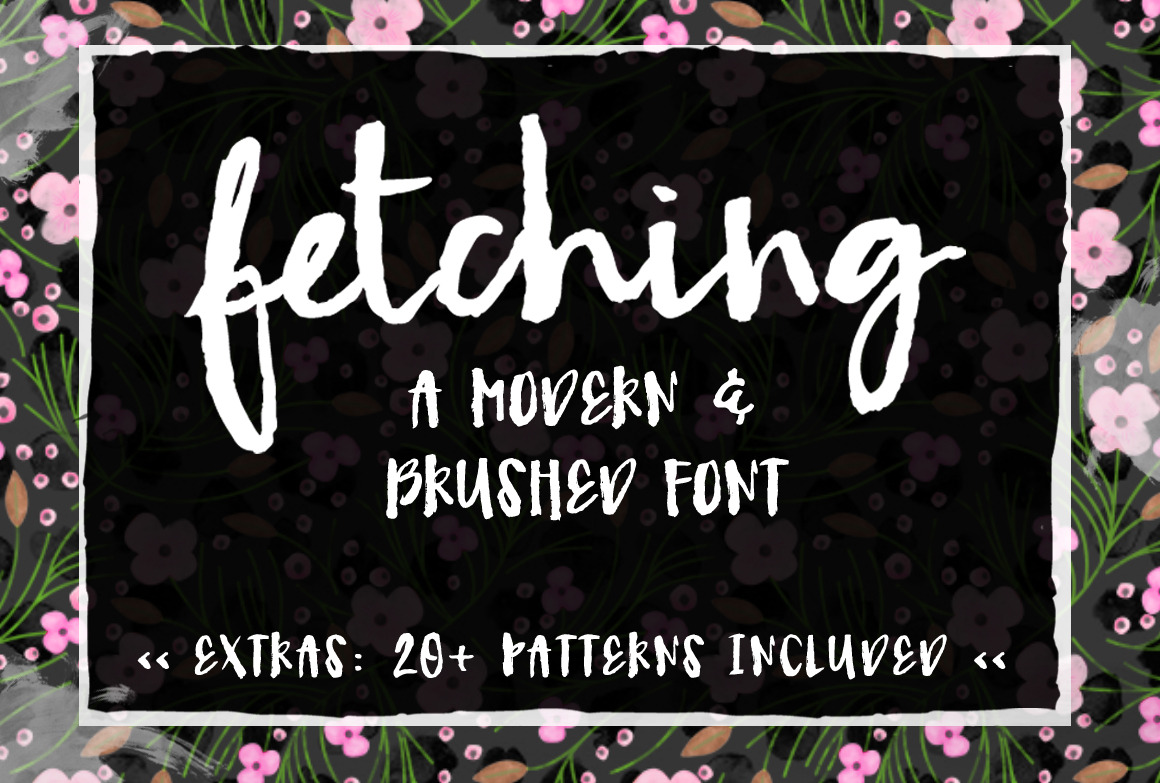
Fetching- A Modern Brush Font
Meet Fetching... a fancy modern brush lettered font with texture and edge. Perfect for your next project that's craving that messy brushed, modern, handmade vibe. I can already see this little pretty on blog headers, invitations, and anywhere you want your text to shine.
Uppercase letterforms include a subtle rough brushed texture. Lowercase letterforms include several unique pairs for a convincing hand-drawn look.
And as an added BONUS there are 20+ hand made patterns included both as a Photoshop .patt file and as a separate font. Win. Also, with contextual alternates in your open type software turned on, try typing ++ and to generate dotted and solid line borders.